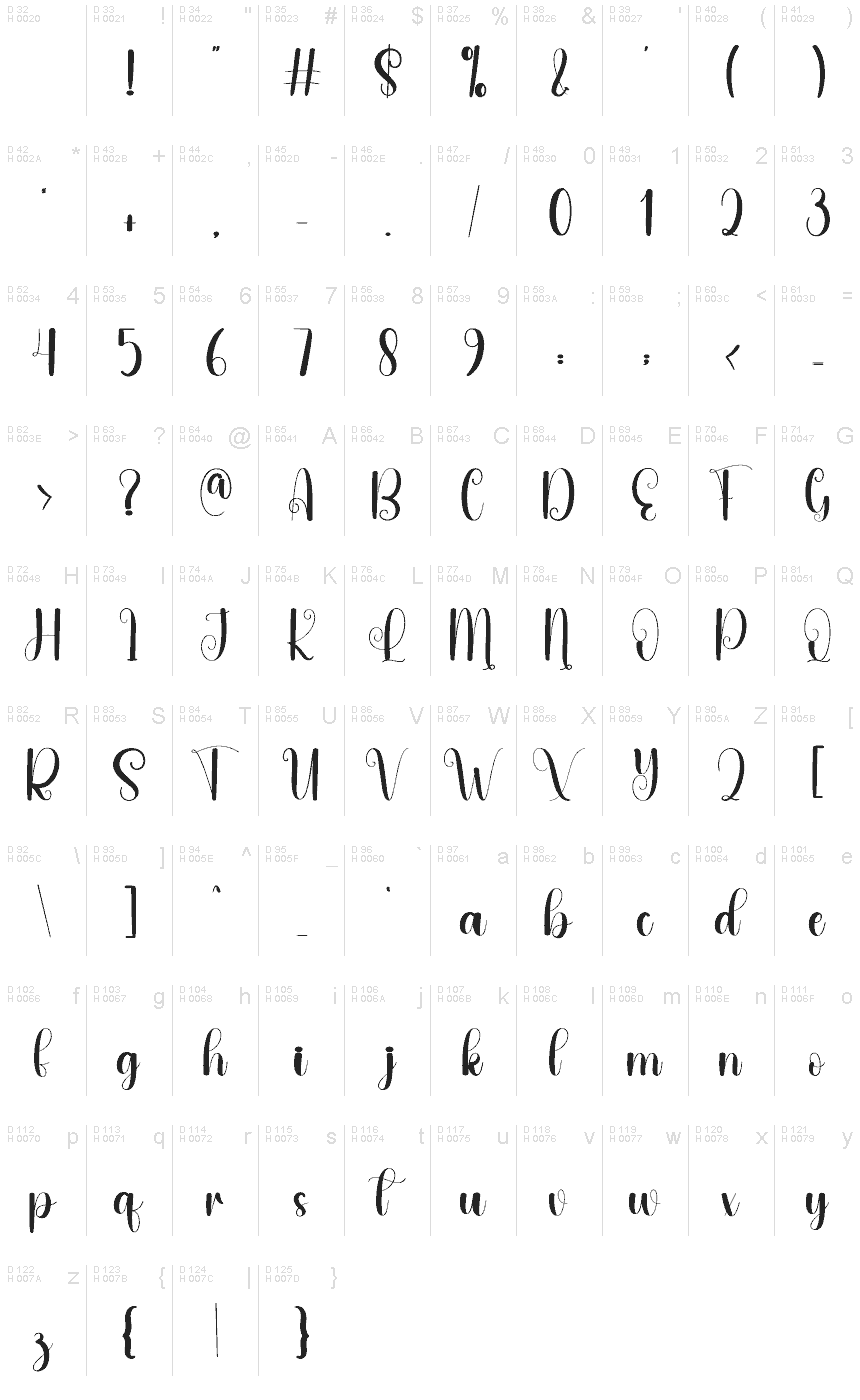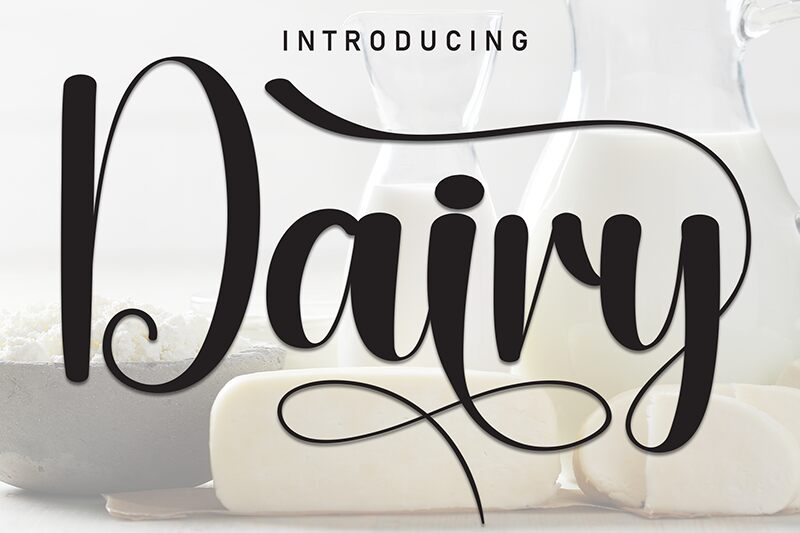
Dairy
Dairy font by Andi Moz is a free calligraphy font with elegant, expressive, and flowing letterforms. Modern decorative elements add to the charm of this stylish assortment of glyphs for a truly splendid effect from all angles and in all sizes.
Get ready to showcase your brilliance in advertising headlines, product packaging titles, book covers, professional magazines, movie posters, or special invitation cards.